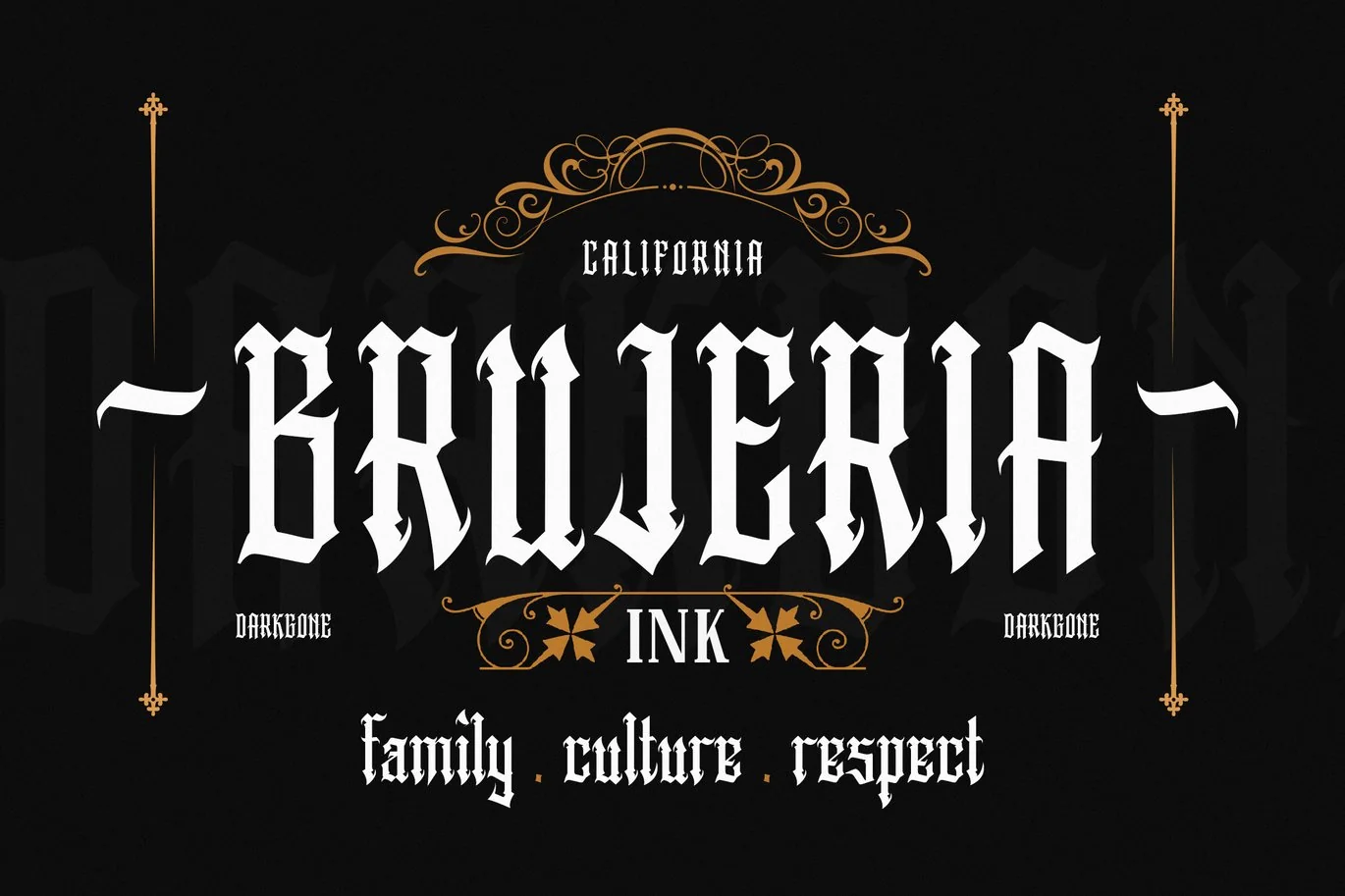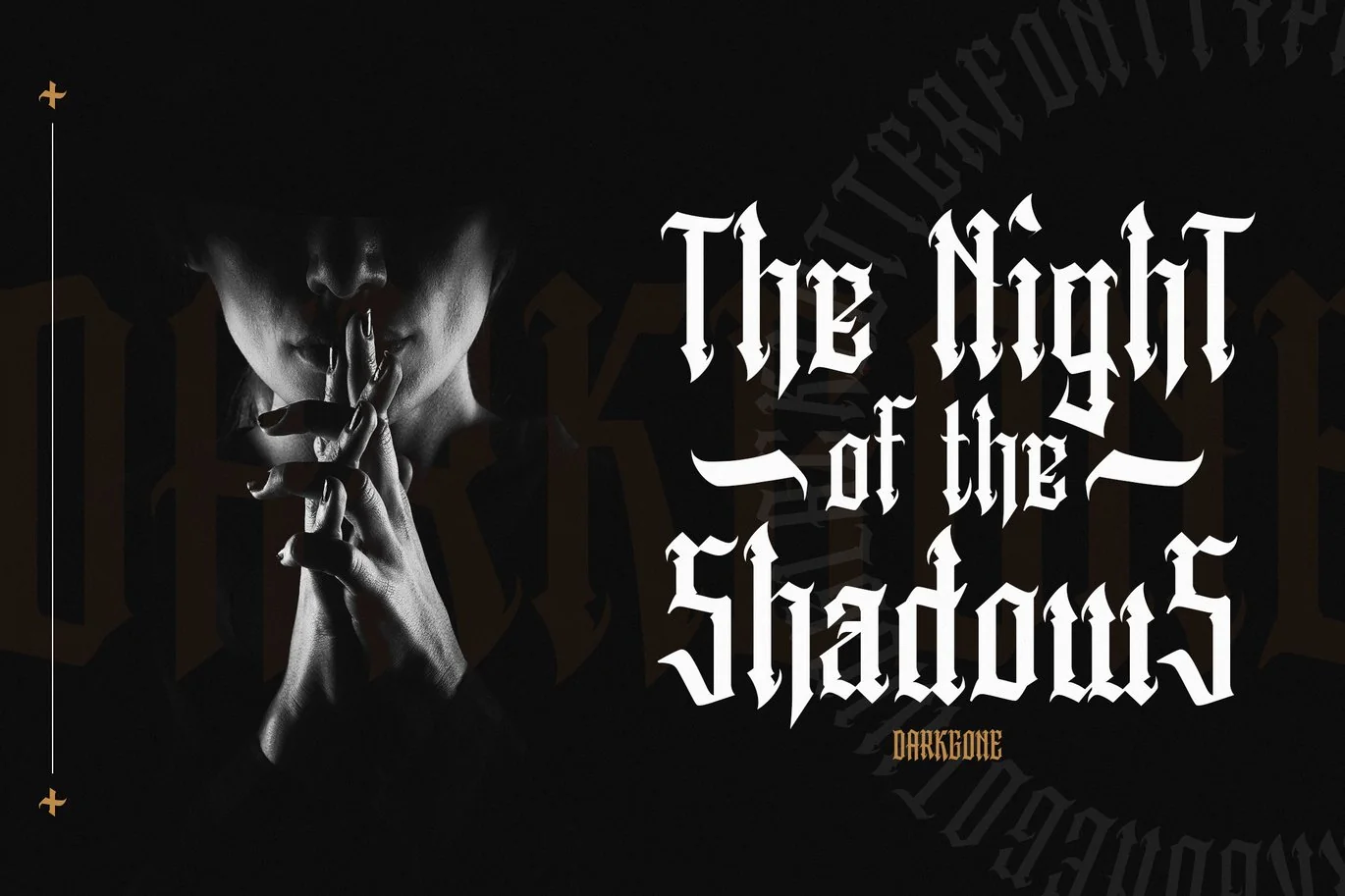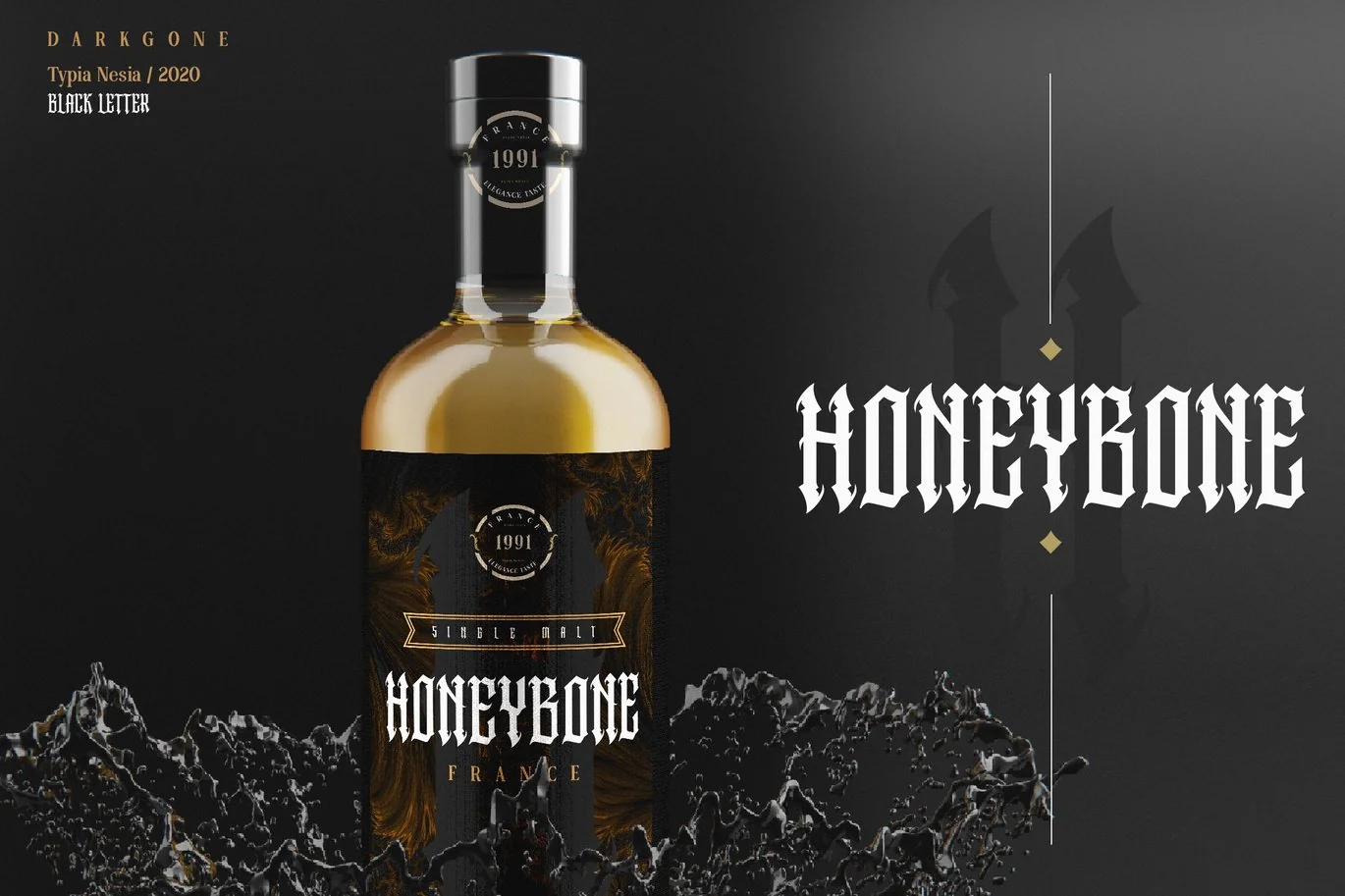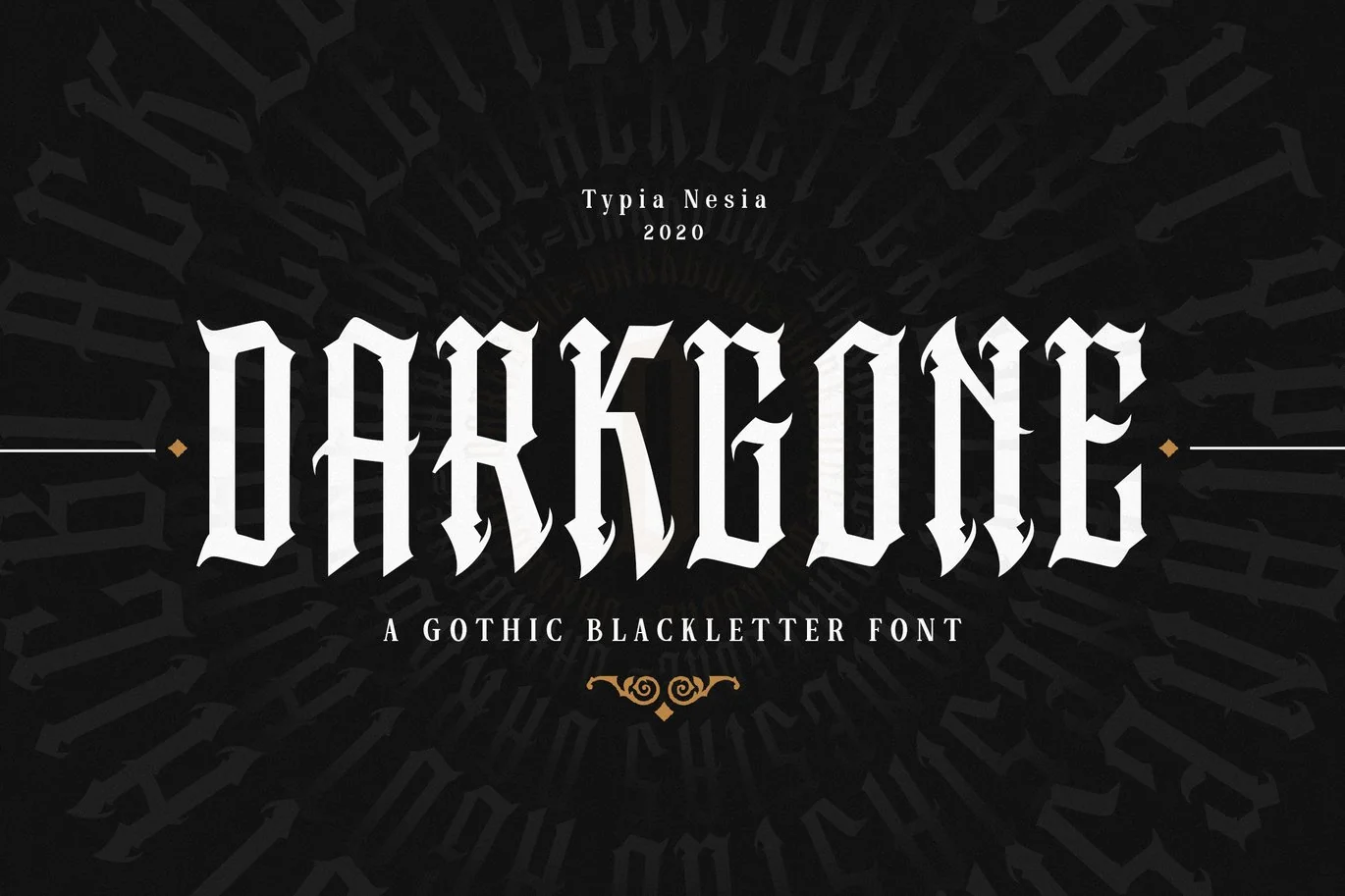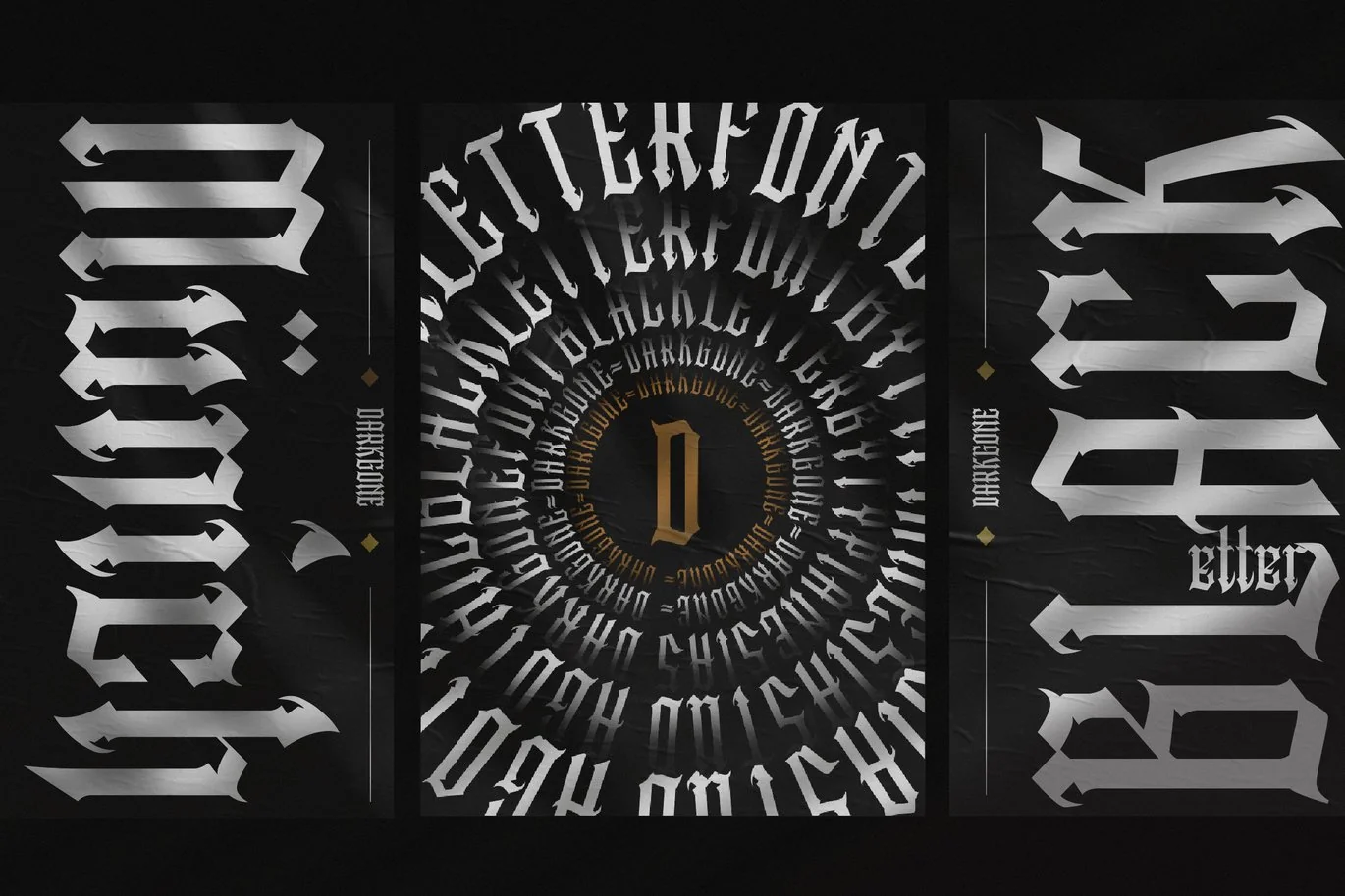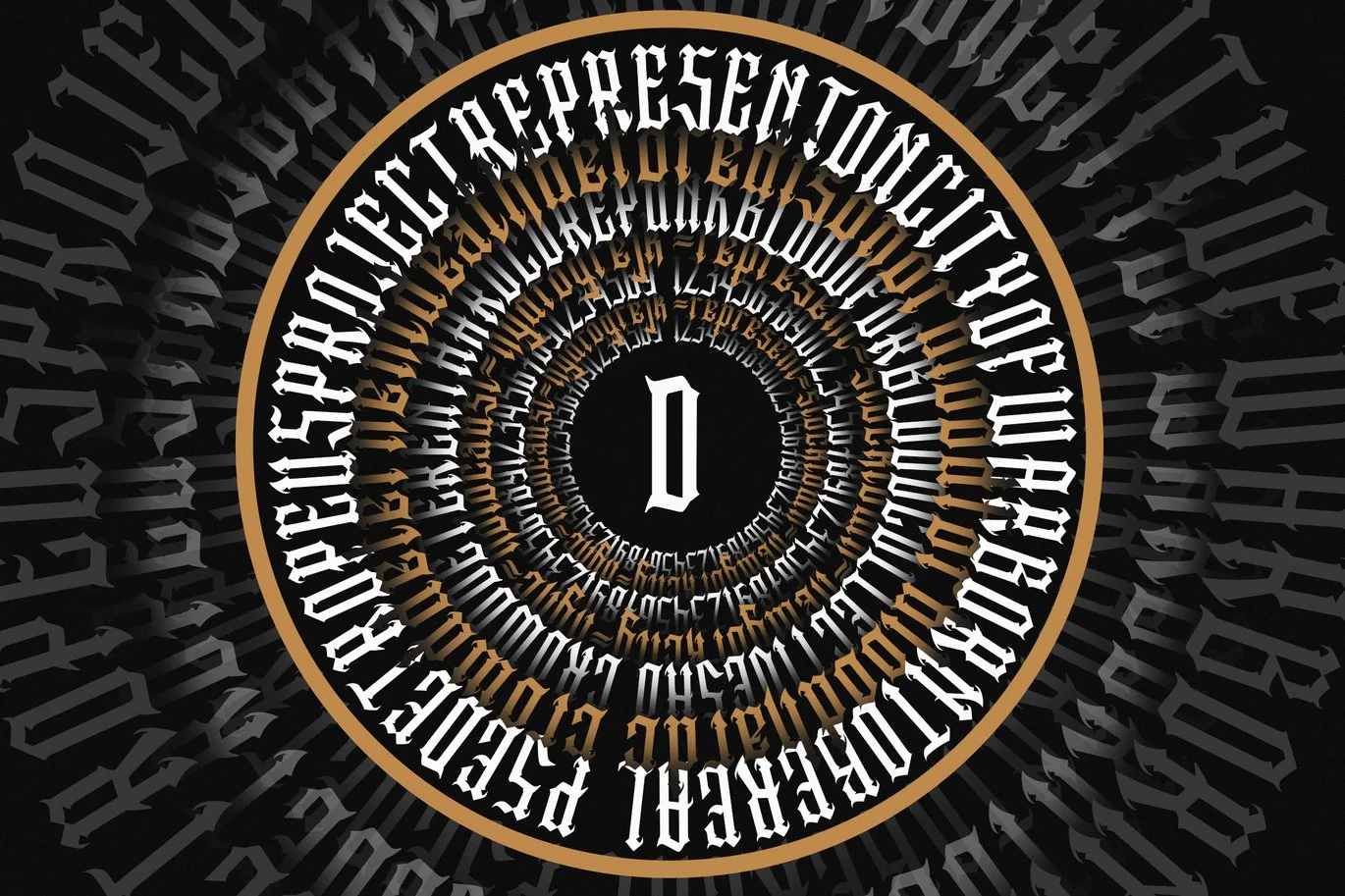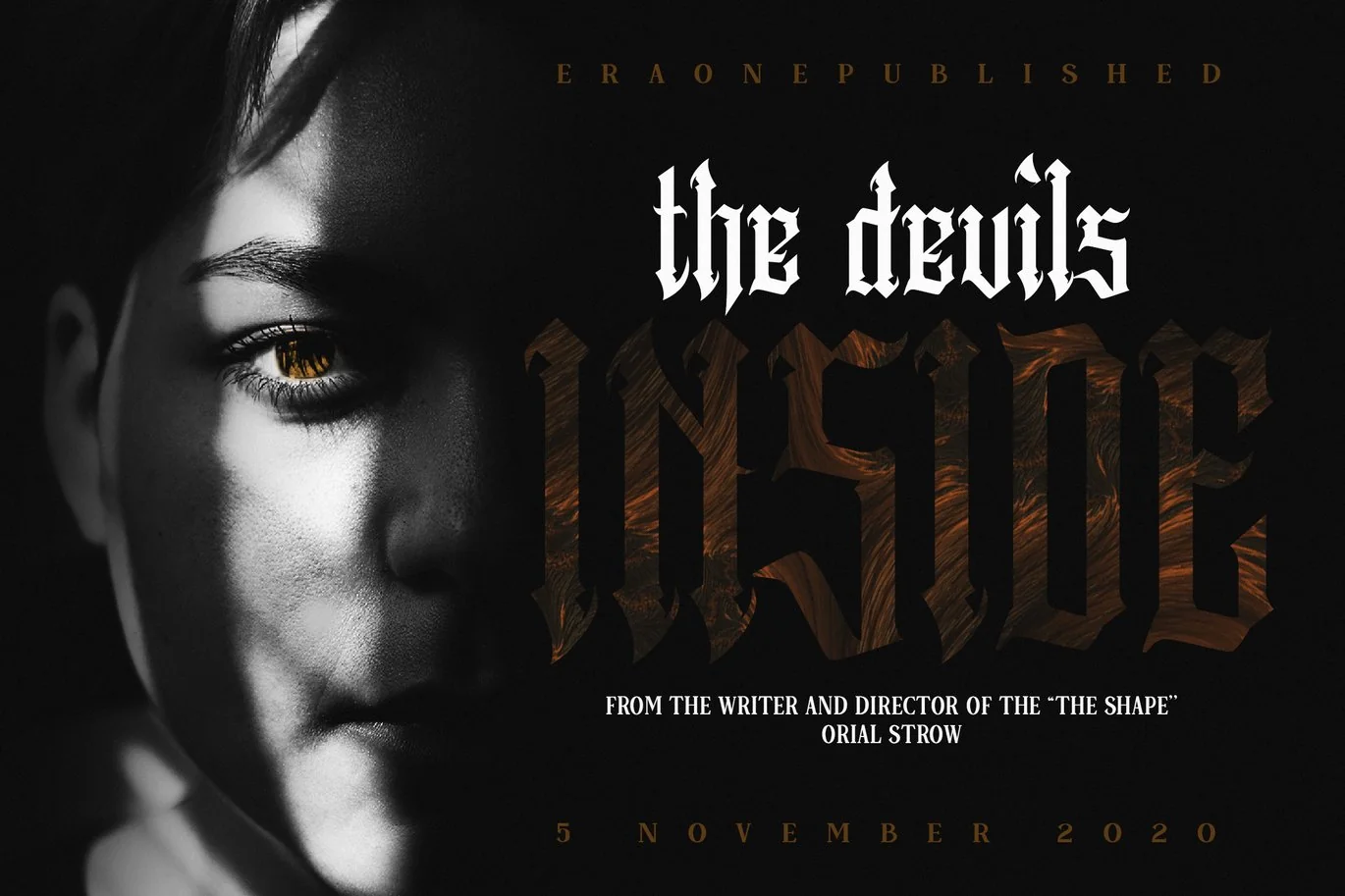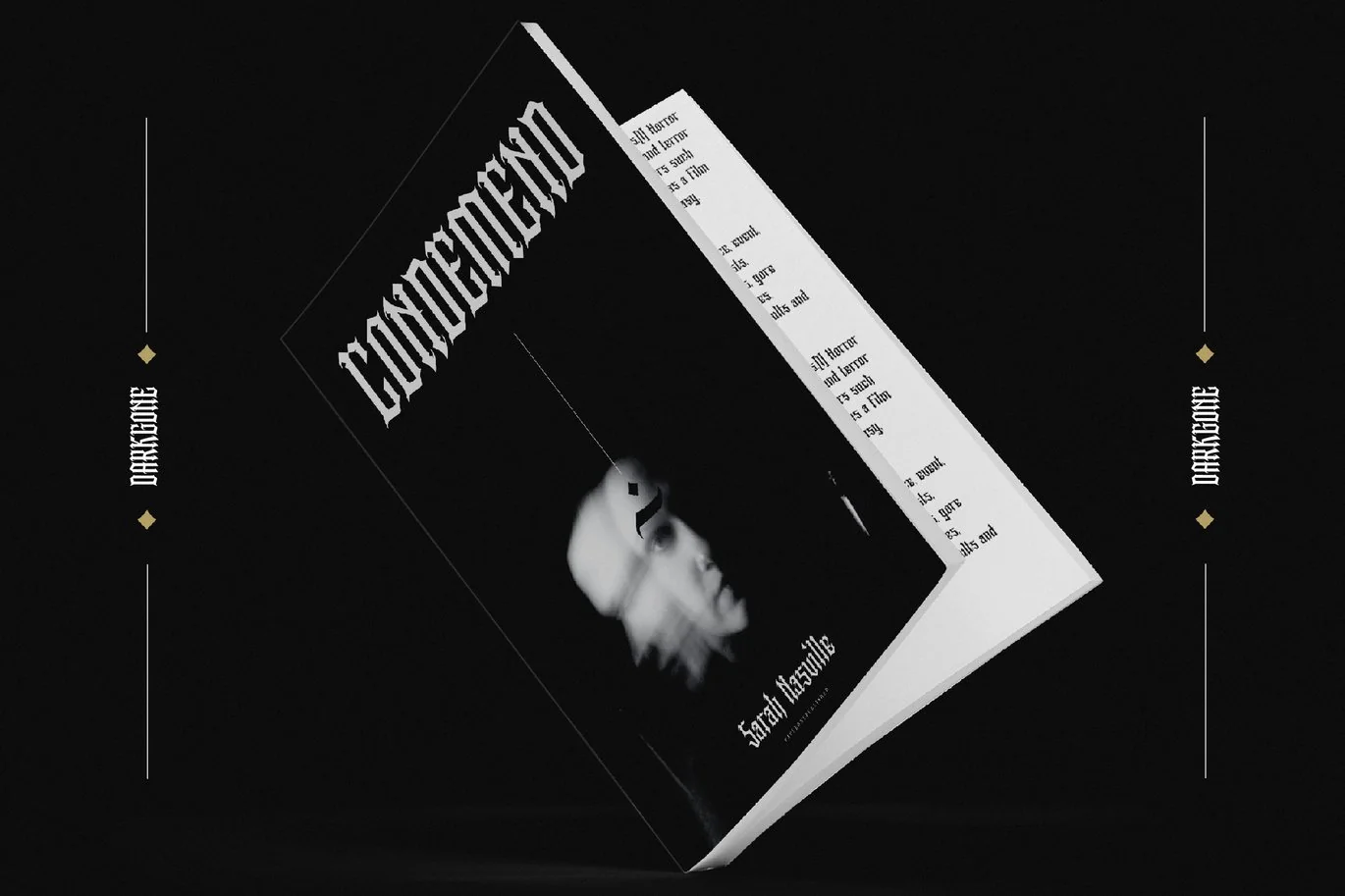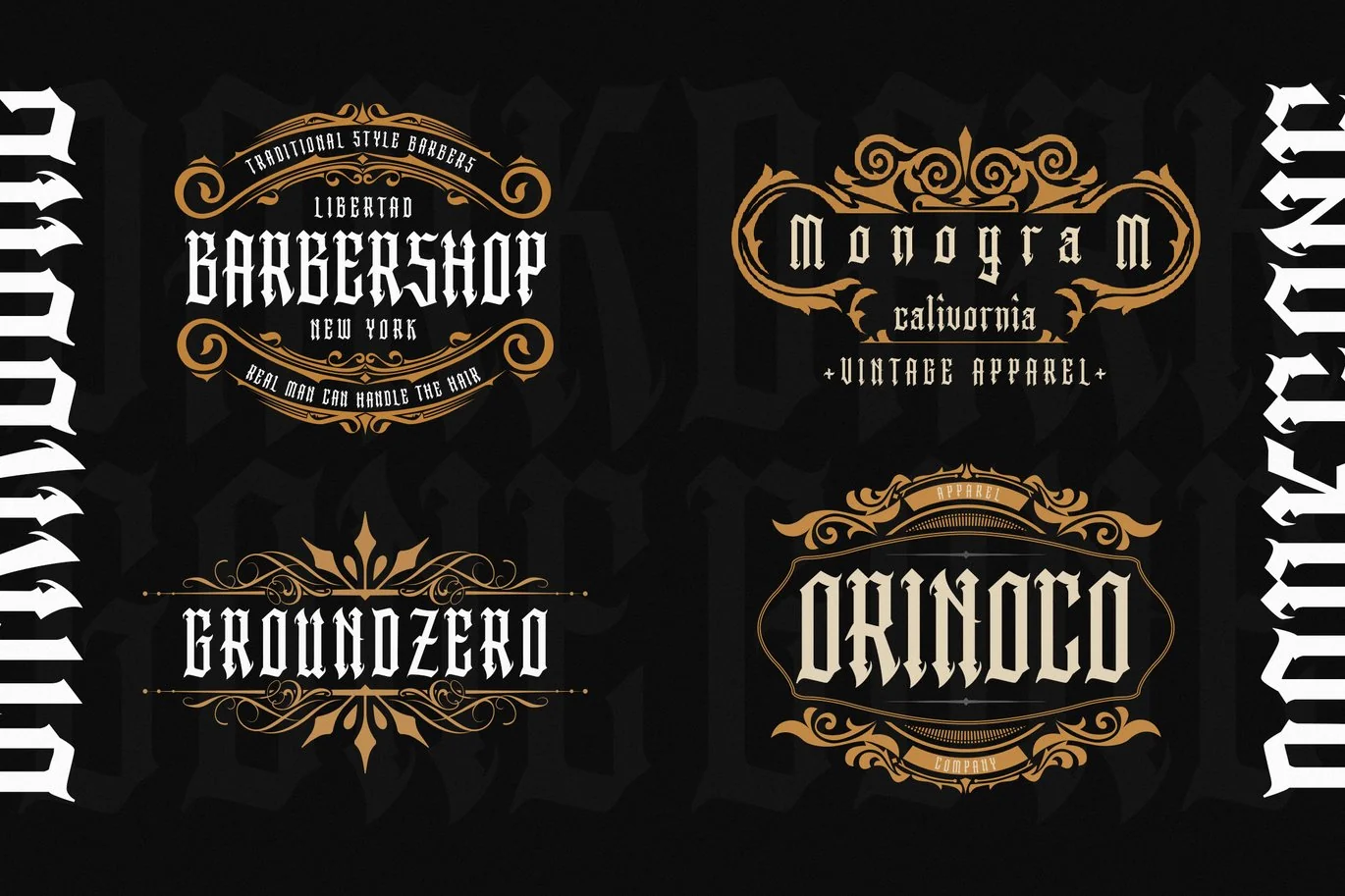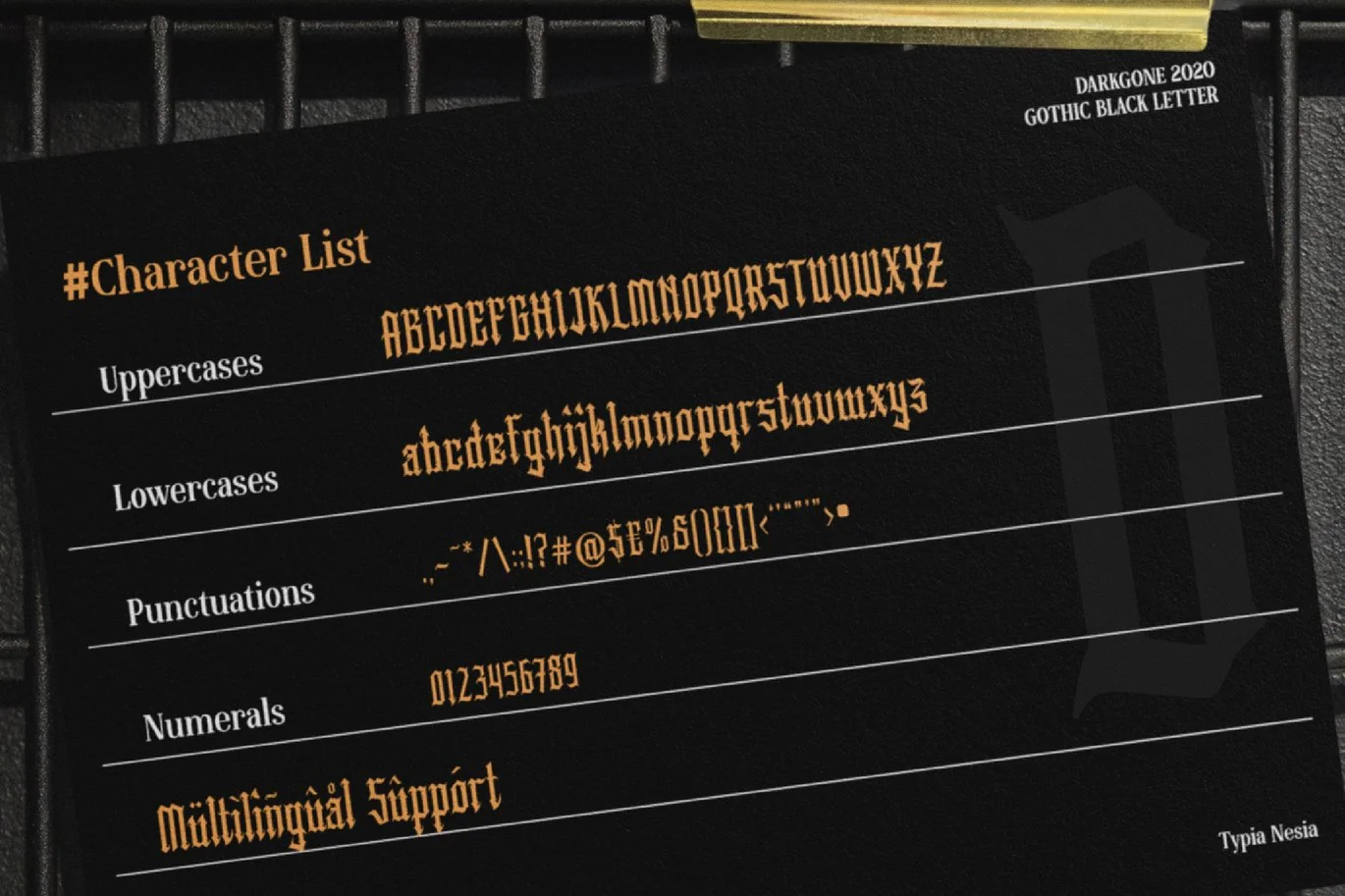
Darkgone – Gothic Blackletter Font
Darkgone – Gothic Blackletter Display Font
Suitable for any design needs : logo, branding, modern advertising design, halloween, gothic design, apparel, hardcore music, animation or movie, logos, poster quote, book / cover Title, editorial design, website / blog, card, custom mug, pillow, t-shirts, and any gothic hand-lettered needs.